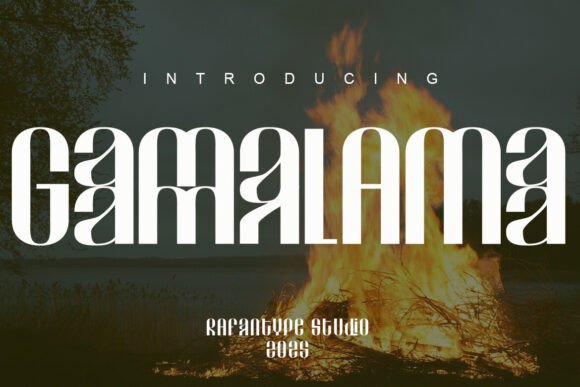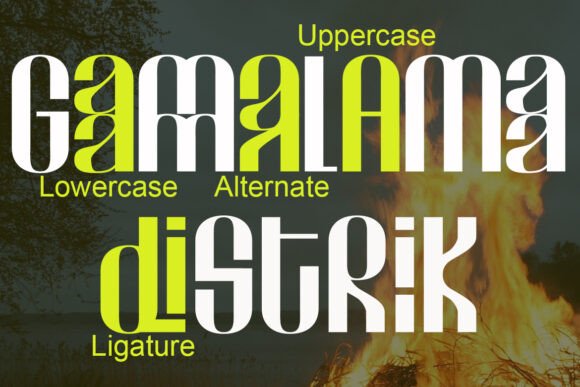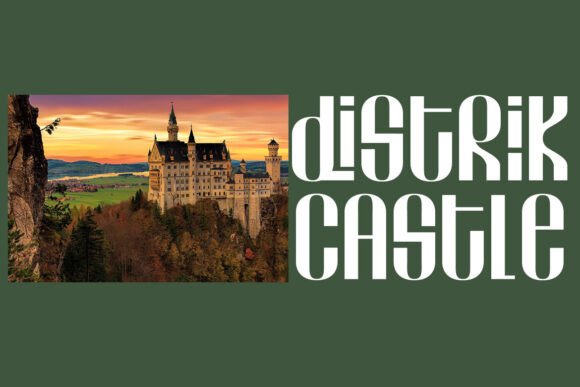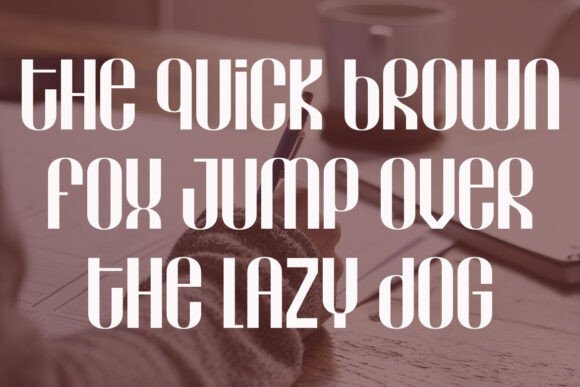
Gamalama Font
About the Gamalama Font
Elevate your designs with Gamalama Font, a font that combines sophistication with readability. GAMALAMA is a display font that is ideal for t-shirt design, brand logo, and fashion branding. It has a clean and minimalist design that will give your projects a stylish and modern touch. Whether you want to create a casual or formal look, font gamalama can help you achieve it.
Gamalama’s strong, geometric forms make it particularly effective for headlines, short impactful statements, and logos requiring a modern, confident feel. It excels in branding for tech companies, minimalist fashion labels, and products emphasizing clean design. Avoid using Gamalama for body text or lengthy paragraphs; its bold strokes are not optimized for readability in extended passages.
Pairing Gamalama with a clean sans-serif like Lato for body copy provides excellent contrast and readability. For a more luxurious feel, consider pairing it with a subtle serif like Playfair Display. A script font like Great Vibes could add a touch of elegance for specific applications, but should be used sparingly to maintain visual balance.
Gamalama projects a bold, modern, and sophisticated personality. Its minimalist aesthetic lends itself well to brands seeking a clean and impactful visual identity, prioritizing clarity and strong visual communication.
Gamalama Font Usage Examples
Gamalama Font Example